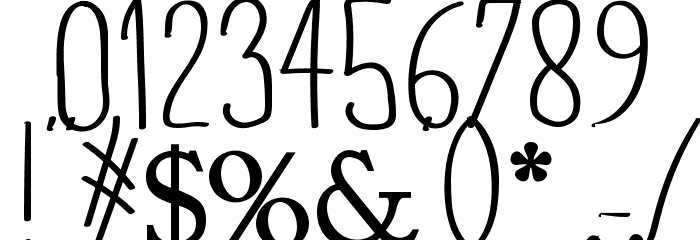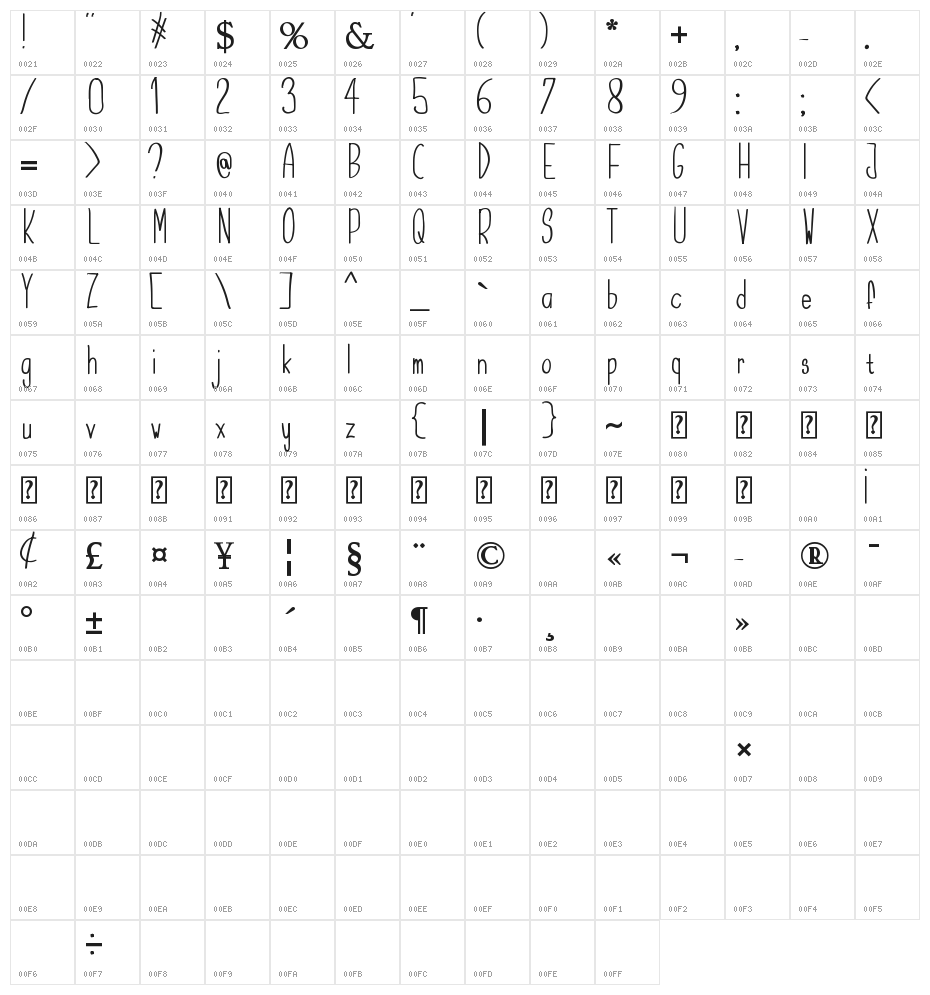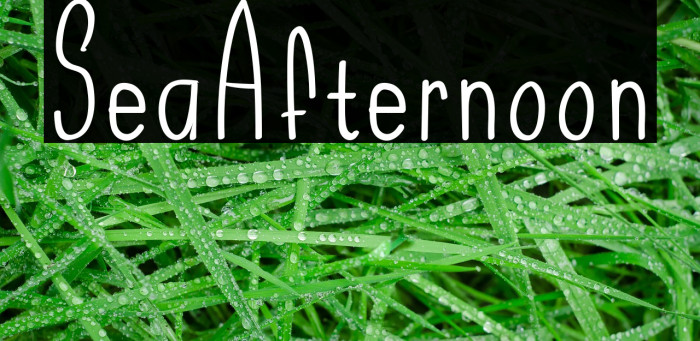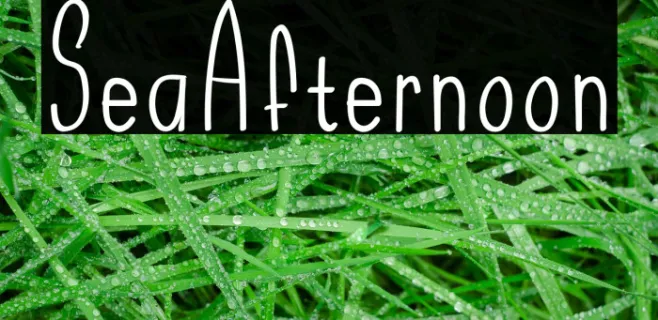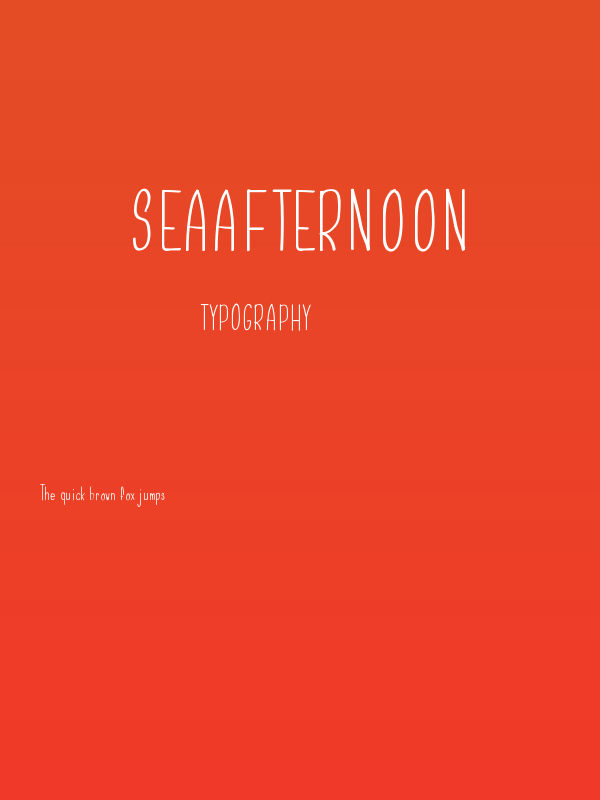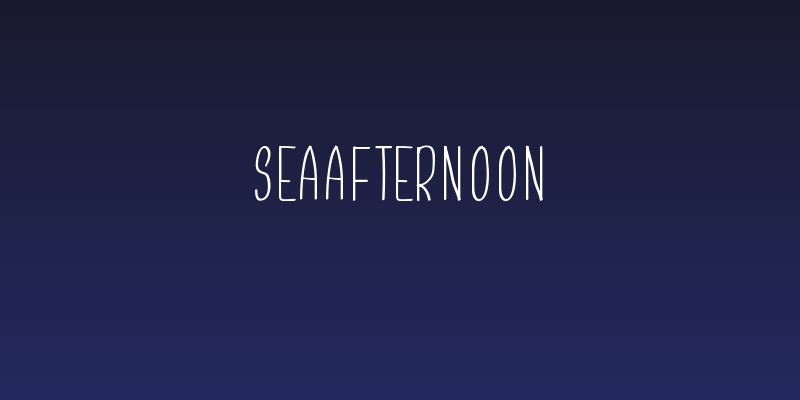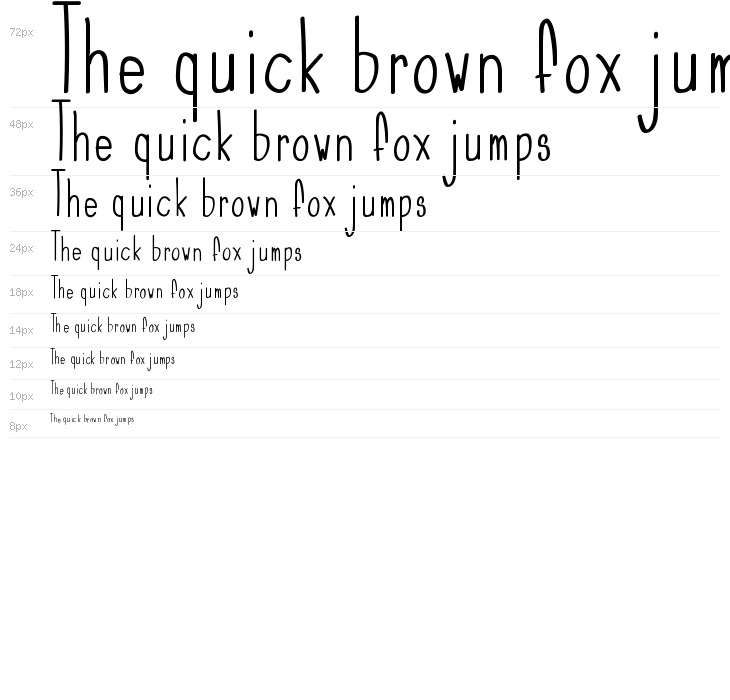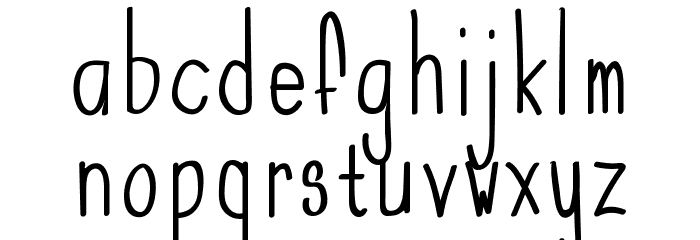
SeaAfternoon Font
SeaAfternoon Description
This font features a playful and whimsical design with tall, narrow letters that have a hand-drawn appearance. The characters are slightly irregular, adding a charming and informal touch. The uppercase letters are particularly elongated, giving the font a unique and distinctive look. The lowercase letters maintain a consistent style, complementing the uppercase with their quirky shapes. Numbers and special characters follow the same playful aesthetic, making the font suitable for creative and artistic projects. The overall design is light-hearted and casual, perfect for conveying a sense of fun and creativity.
Overall StyleWhimsical
Use CaseHeadlines, Logos, Creative projects
Proposed ProjectsIdeal for children's books, greeting cards, playful branding, and creative posters.